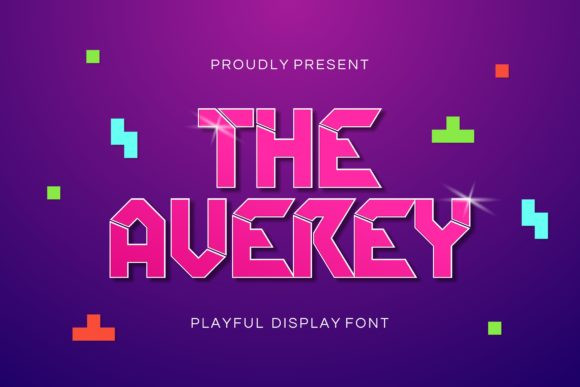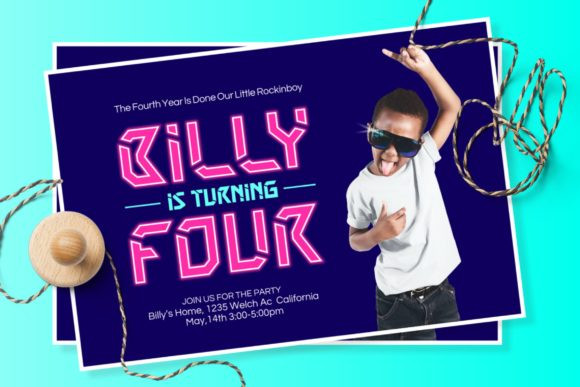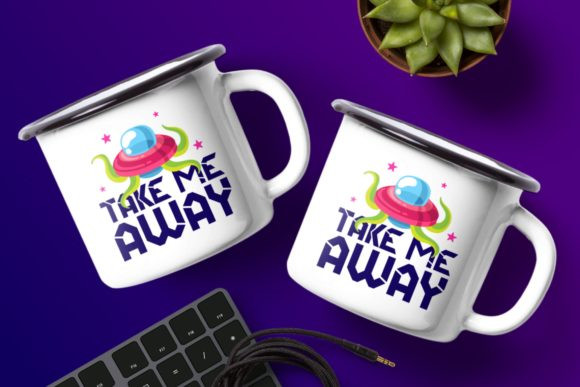
Averey Font
Averey is a cute display font with a playful themes. It matches a wide variety of project designs such as the logotype, brand, packaging, quotes, pet poster, kids shirt, cover book, birthday invitation and more custom design.